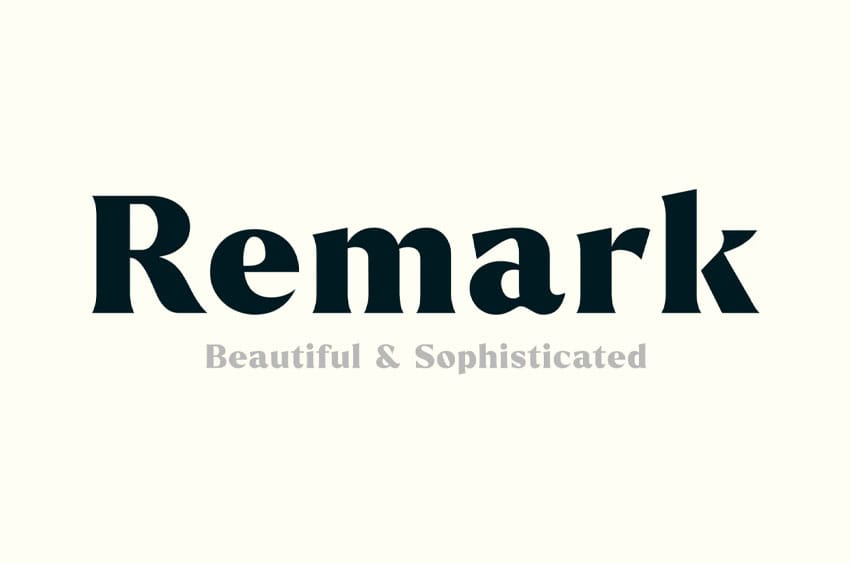
Remark Font is a commanding serif typeface where classical elegance meets modern strength. Inspired by the monumental inscriptions and enduring artistry of the Ancient Roman Empire, Remark features bold proportions, sharp serifs, and refined architectural details that give every word a powerful, authoritative presence.
Designed to capture attention, Remark transforms ordinary typography into a striking visual statement. Its sophisticated character makes it equally suited to prestigious branding, dramatic editorial layouts, luxury packaging, impactful posters, memorable quotes, elegant invitations, book covers, labels, stationery, and website headlines.
Whether you are building a timeless identity, creating a commanding title, or adding a sense of history and distinction to your work, Remark delivers confidence, clarity, and unmistakable sophistication. When your message deserves to be noticed, remembered, and respected, Remark speaks with authority.